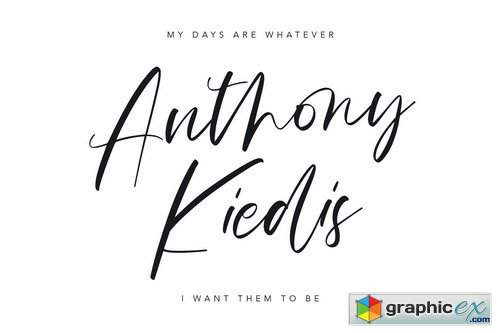
Monalls Script Signature Brush Font
Give your designs an authentic handcrafted feel. “Monalls Script Signature” is perfectly suited to stationery, logos and much more.